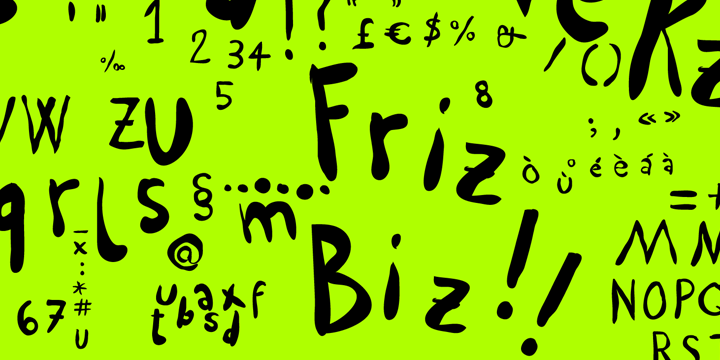
Friz Biz
Friz Biz specimen
Designed when: 2007
Design owned by: studiocharlie
Friz Biz
Friz Biz is an handwritten font; your designs will be really funny and fancy!